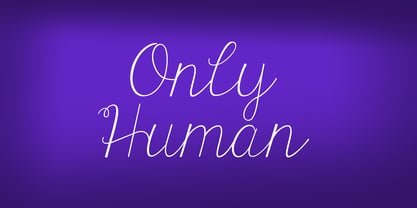
KG Only Human
by Kimberly Geswein
KG Only Human Font Family was designed by Kimberly Geswein and published by Kimberly Geswein. KG Only Human contains 1 styles.
A connected, delicate script font.
Designers: Kimberly Geswein
Publisher: Kimberly Geswein
Foundry: Kimberly Geswein
Design Owner: Kimberly Geswein